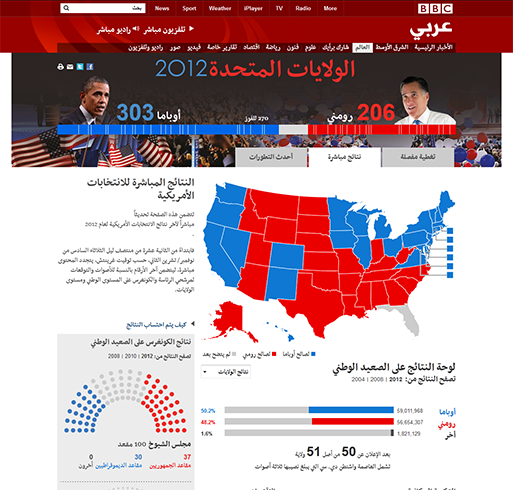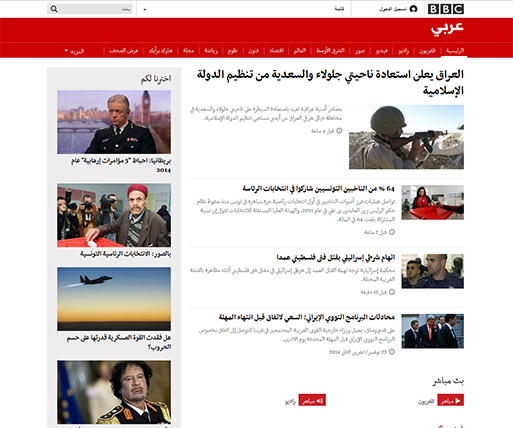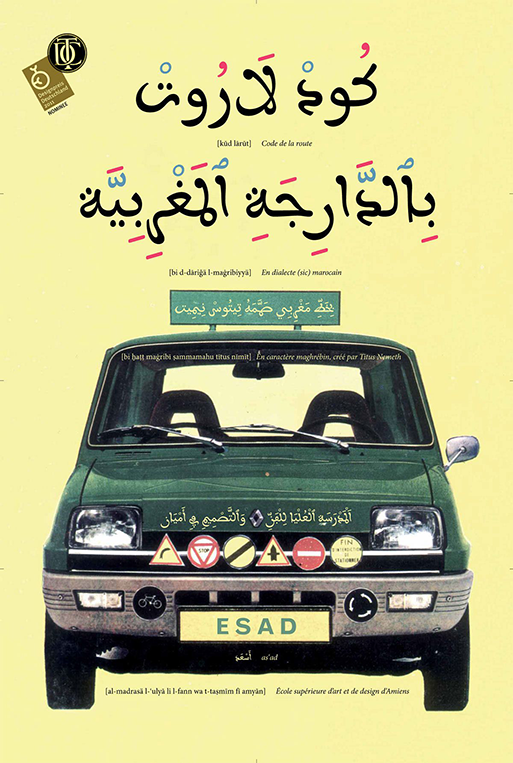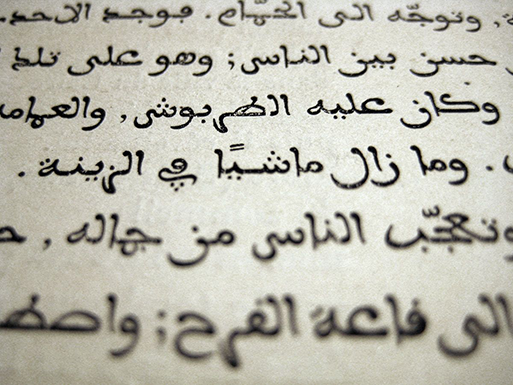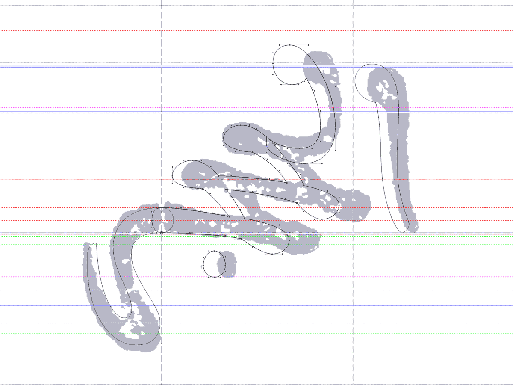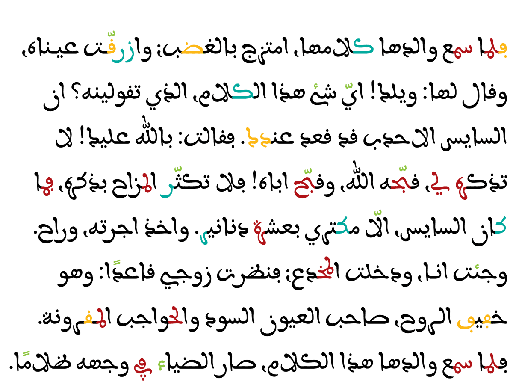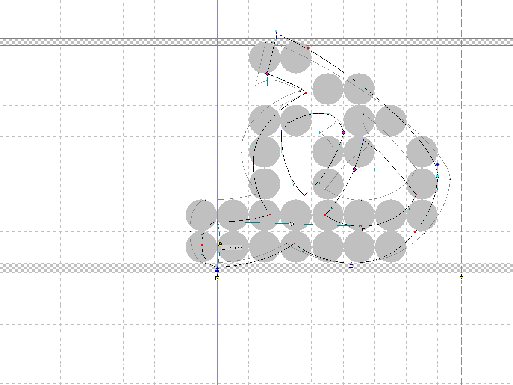
Dr Titus Nemeth dives into the Arabic typography evolution
As the blurb says without any false modesty, this is the first in-depth account of the evolution of Arabic type in the twentieth century” writes Dr. Titus Nemeth on his book Arabic Type-Making in the Machine Age: The influence of Technology on the Form of Arabic Type 1908–1993, which is going to be published by the Dutch publisher Brill next month.
“Crucially, it is the first comprehensive study of the subject that is based on original archival research, documenting a wealth of previously unpublished and largely unknown evidence about the evolution of this field. Taking the characteristics of various type-making and typesetting technologies as its starting point, Arabic Type-Making in the Machine Age seeks to understand how typographic forms emerged under the impetus of limitations and constraints of machinery. It narrates how the predominantly, Western manufacturers sought to provide typographic tools for the Arabic script, and investigates their various motivations, approaches, and solutions” he adds.
Dr Titus Nemeth is an independent type designer and typographer with expertise in Arabic script culture. His internationally recognised practice spans commercial and cultural work, and his interests and activities extend to academic research and teaching in higher education.
His original type designs have won multiple renowned awards and are widely used for complex cross-cultural visual communications. Titus holds a PhD in Typography & Graphic Communication from the University of Reading, UK, an MA in Typeface Design from the same institution, and a diploma in Graphic Design from Die Graphische in Vienna, Austria. He has taught type design and typography at schools in Austria, France, Morocco, Qatar and the UK. Titus is a member of the ATypI, the TDC New York, the typographische gesellschaft austria and Design Austria.
Arabic is the third most widely used script in the world, and gave rise to one of the richest manuscript cultures of mankind. Its representation in type has engaged printers, engineers, businesses and designers since the 16th century, and today most digital devices render Arabic type. Yet the evolution of the printed form of Arabic, and its development from metal to pixels, has not been charted before.
Arabic Type-Making in the Machine Age provides the first comprehensive account of this history using previously undocumented archival sources. In this richly illustrated volume, Titus Nemeth narrates the evolution of Arabic type under the influence of changing technologies from the perspective of a practitioner, combining historical research with applied design considerations.